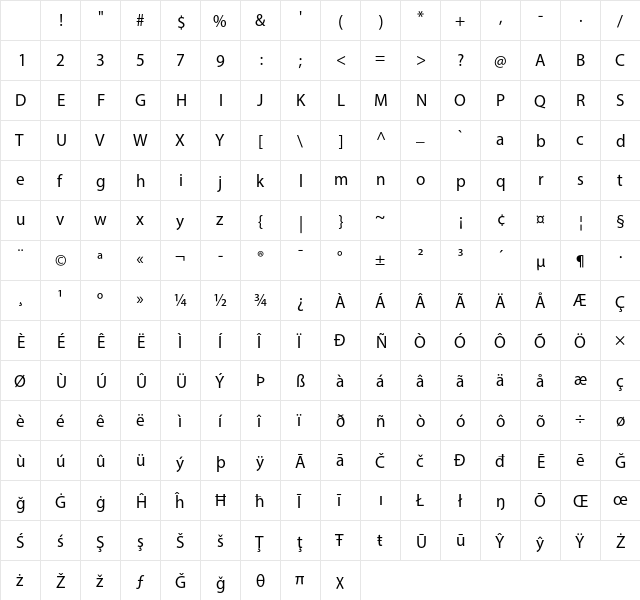
Myriad Arabic Regular
Designer: Robert Slimbach and Carol Twombly
Design Context for Myriad Arabic
Myriad Arabic is a composed and adaptable typeface that performs quietly and consistently across a wide range of design contexts.
Pro Tip: Use Myriad Arabic in both headline and body roles to test its range before committing to a single application.